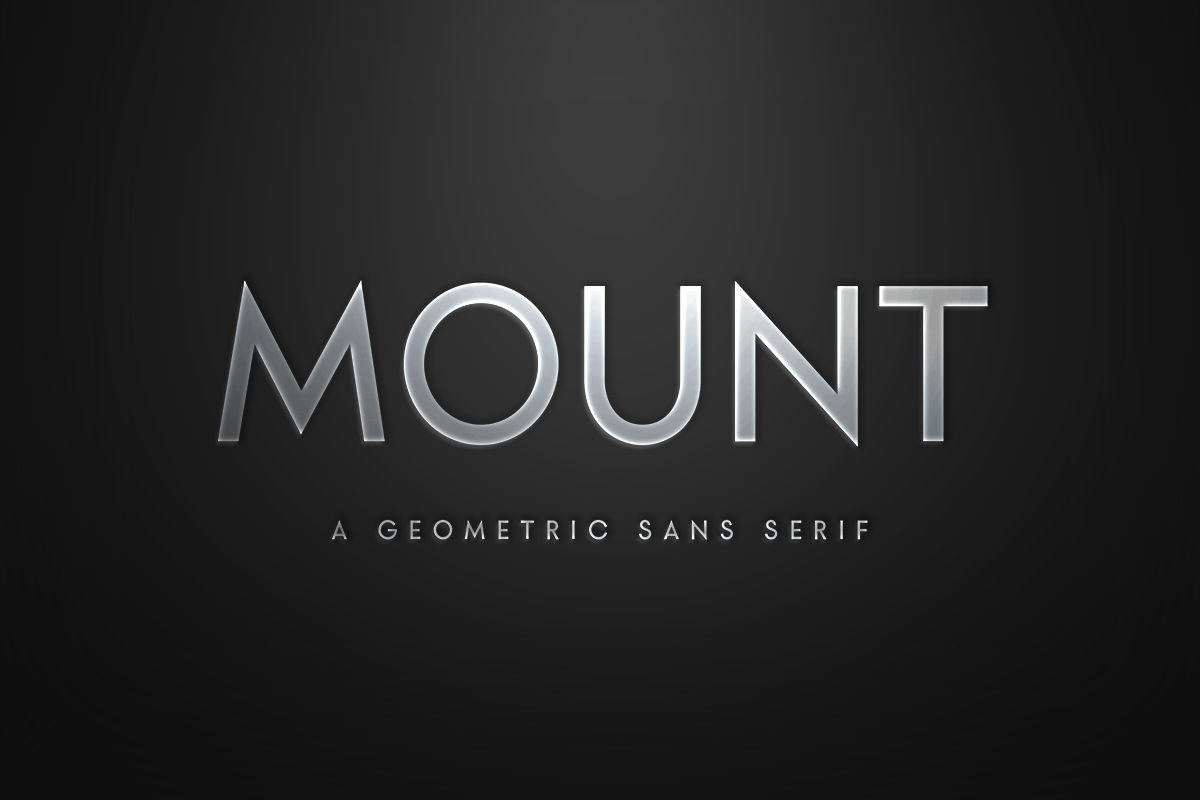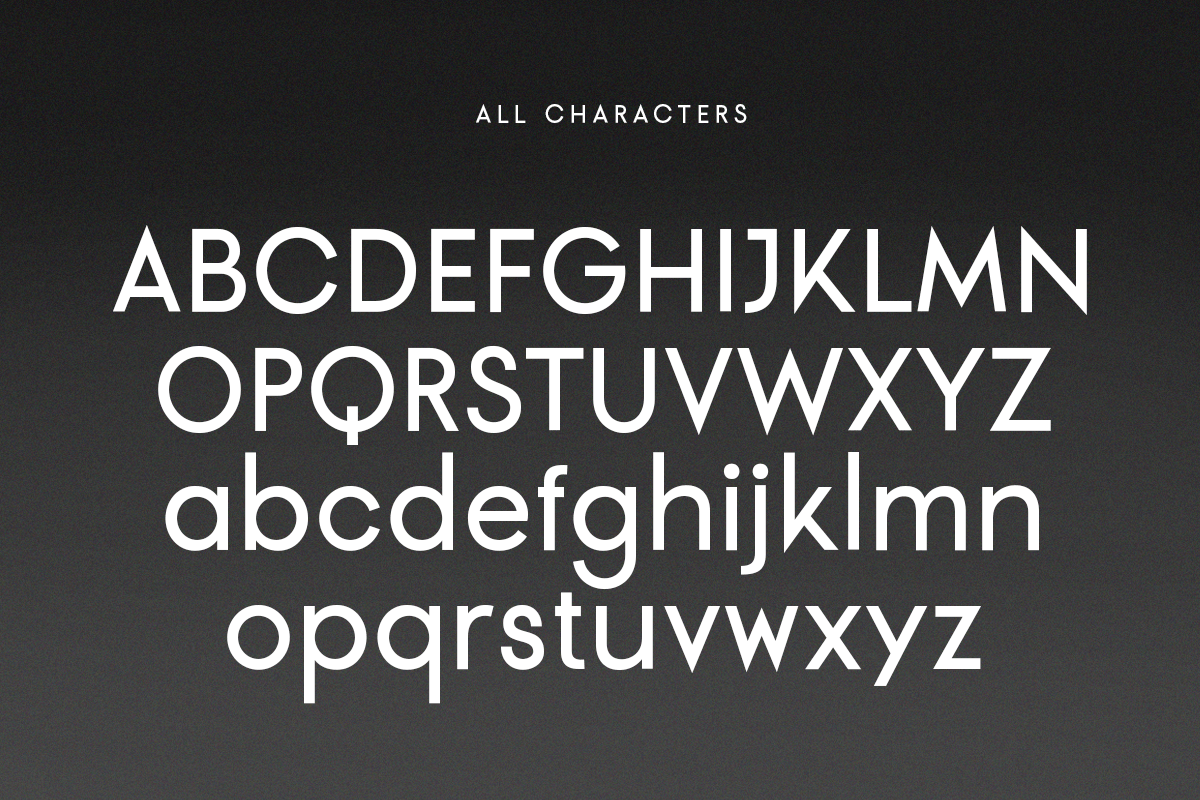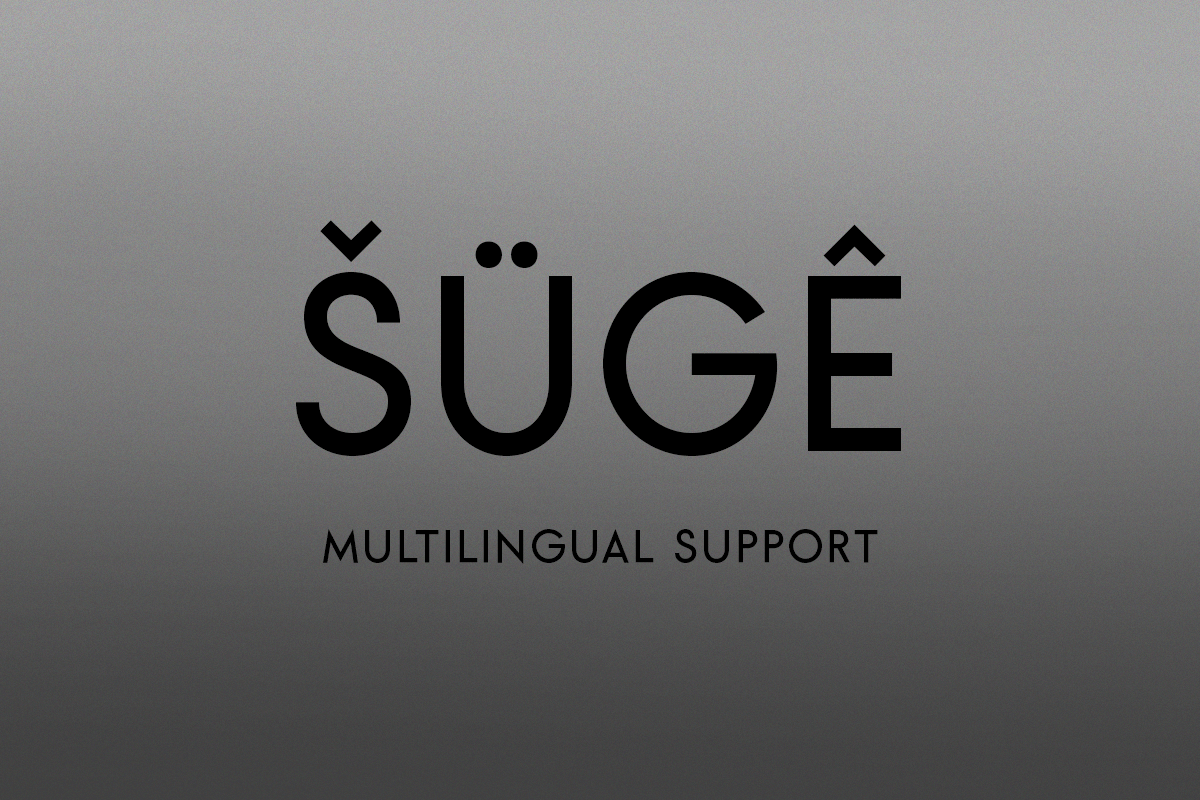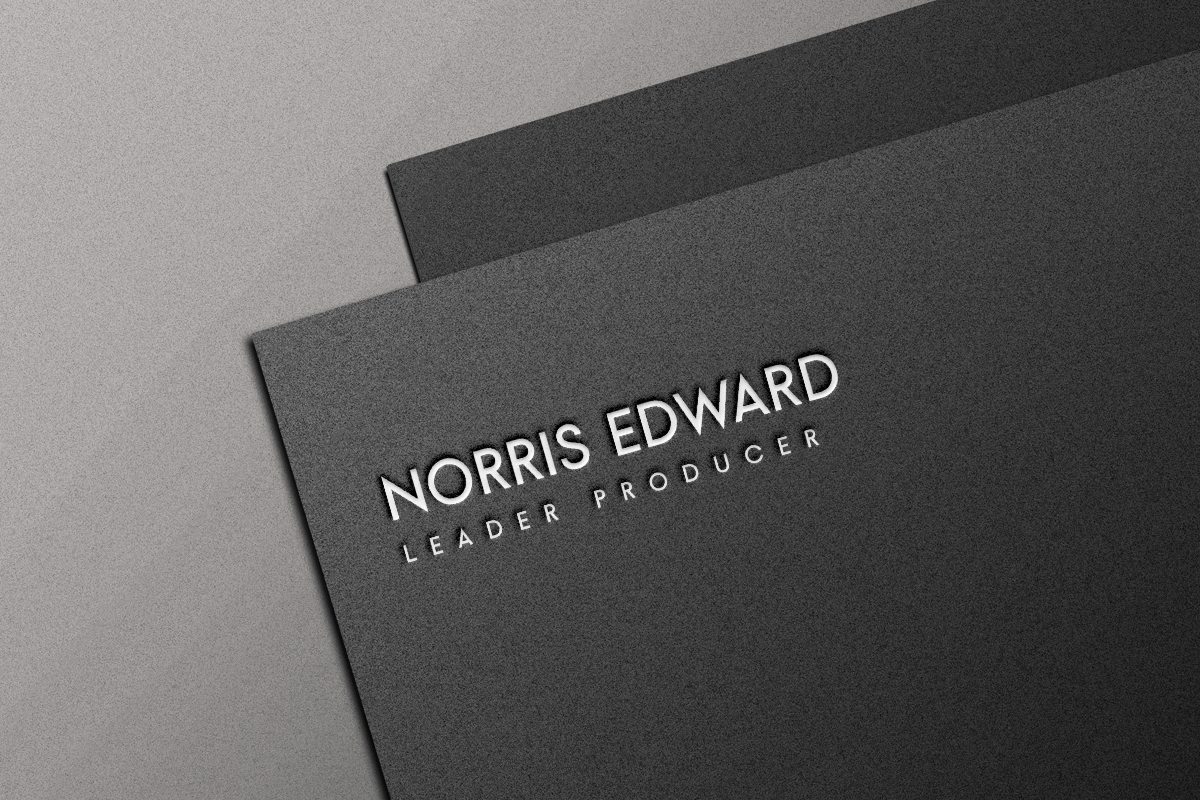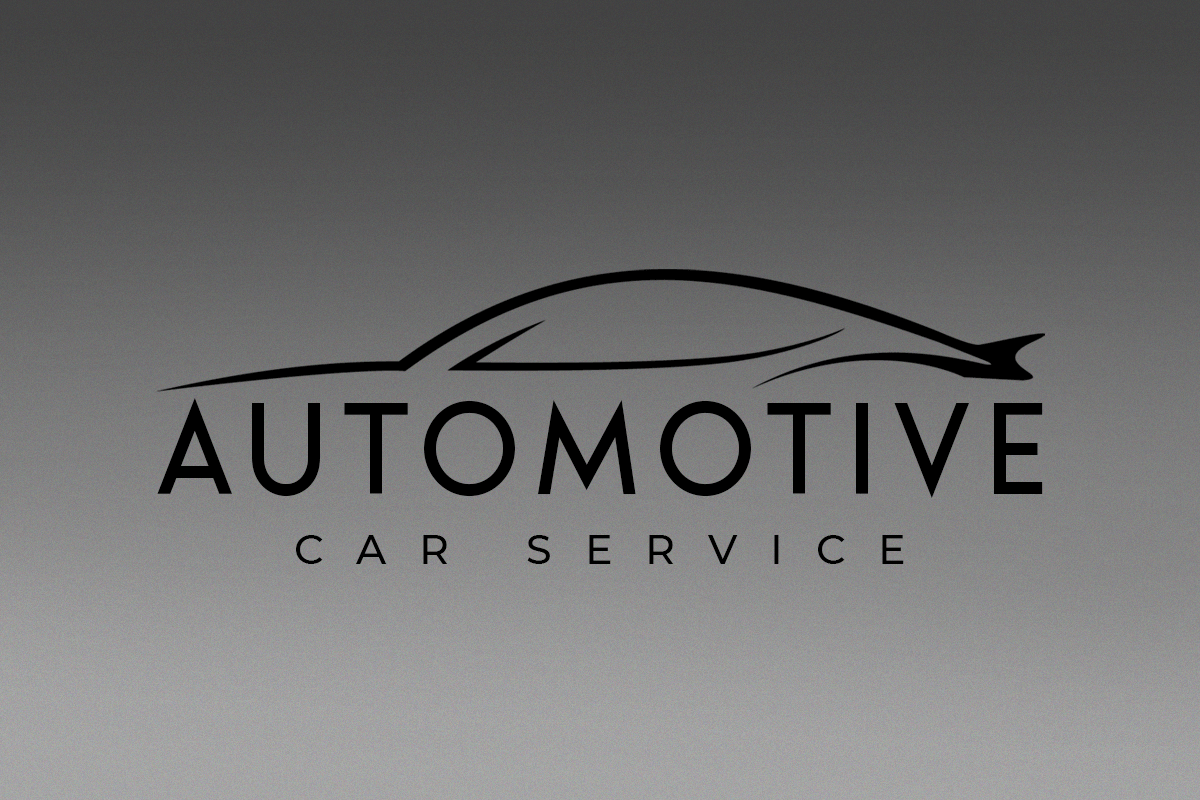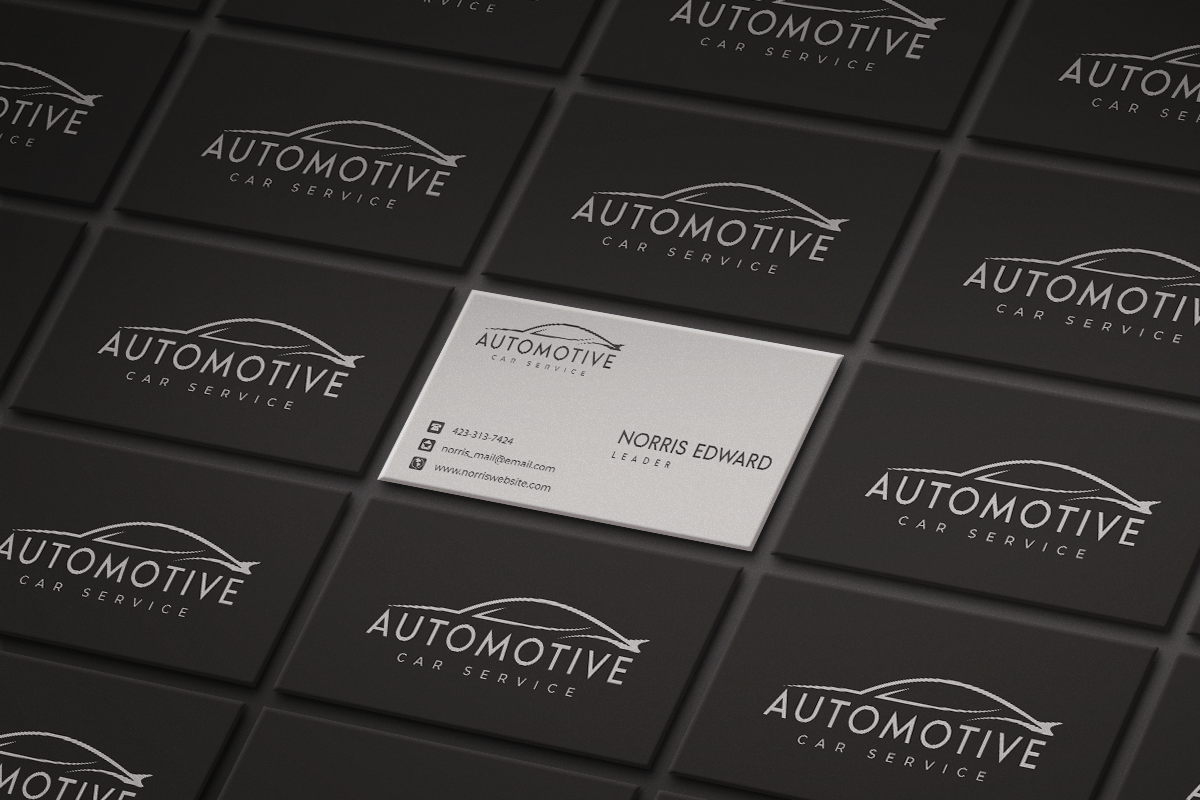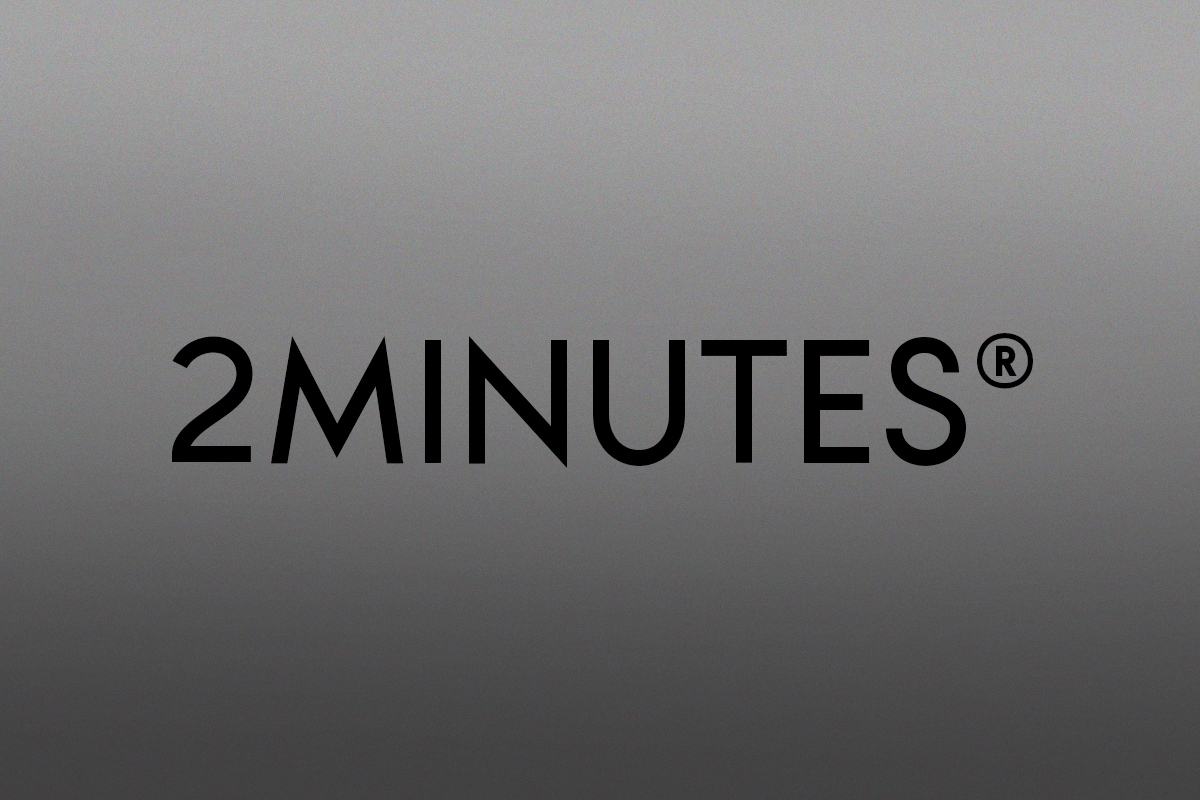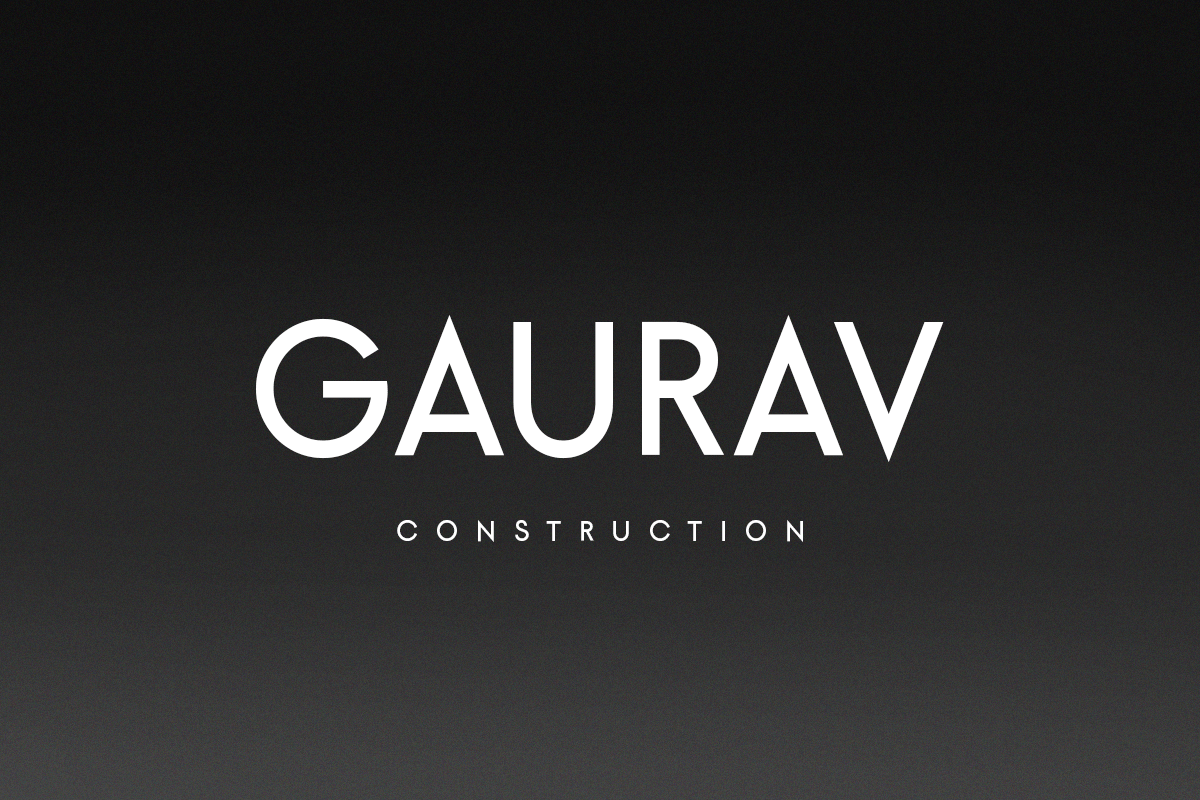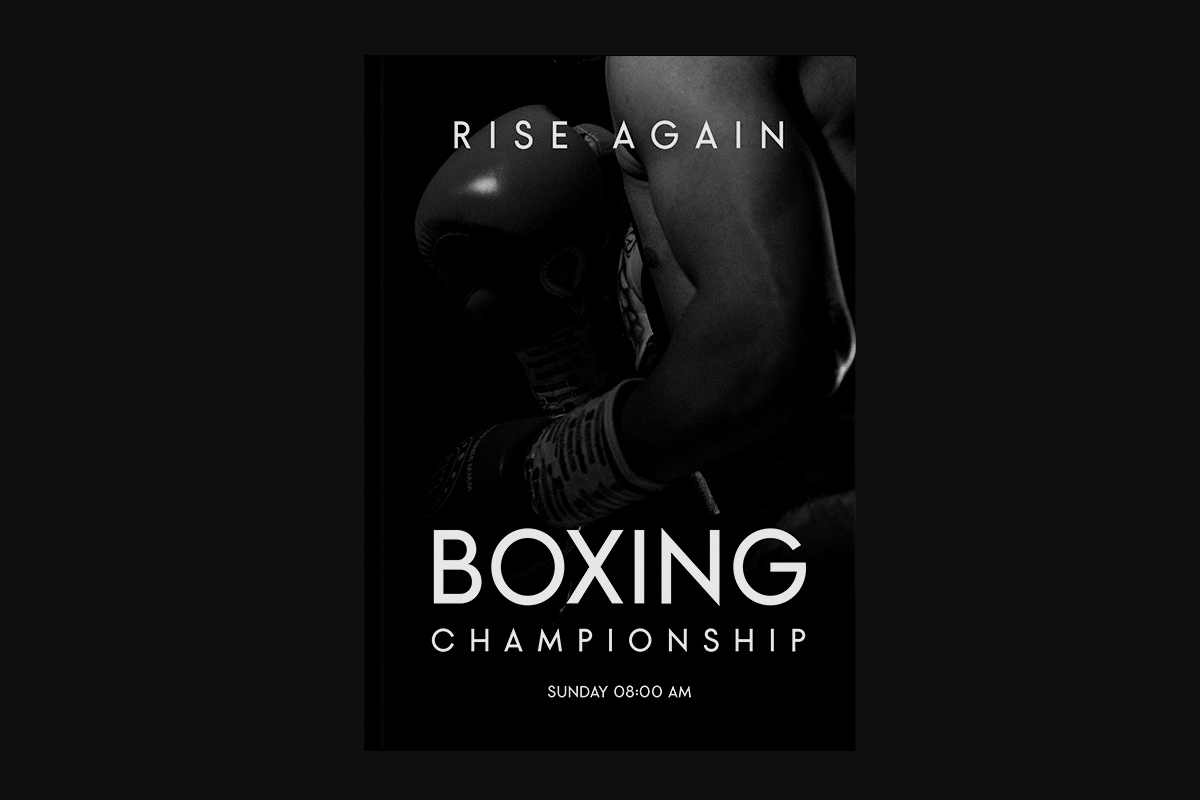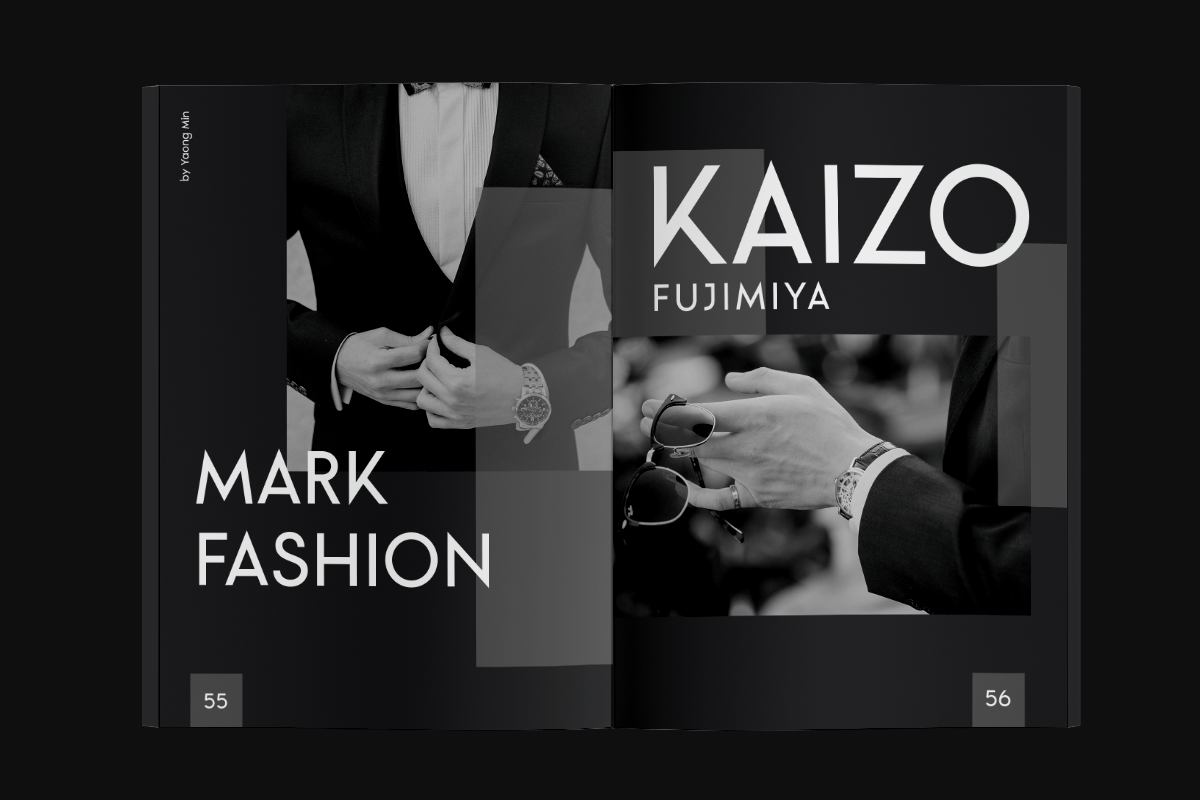
MOUNT
-Modern Classy Geometric Sans Serif Font
Mount
MOUNT is a Geometric sans serif font with luxury, elegant, modern, minimalist, unique and classy-look. This font crafted specials for Modern-themed projects, ready to use on Magazine, Social Media, Branding, Logo, and Many more that needs Modern touches.